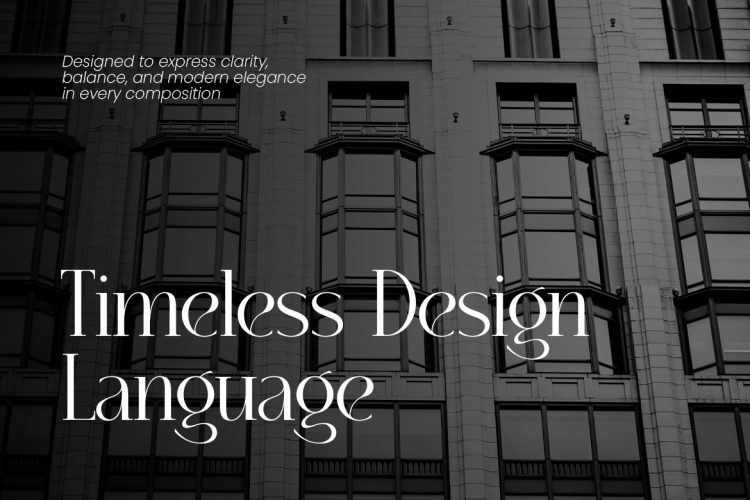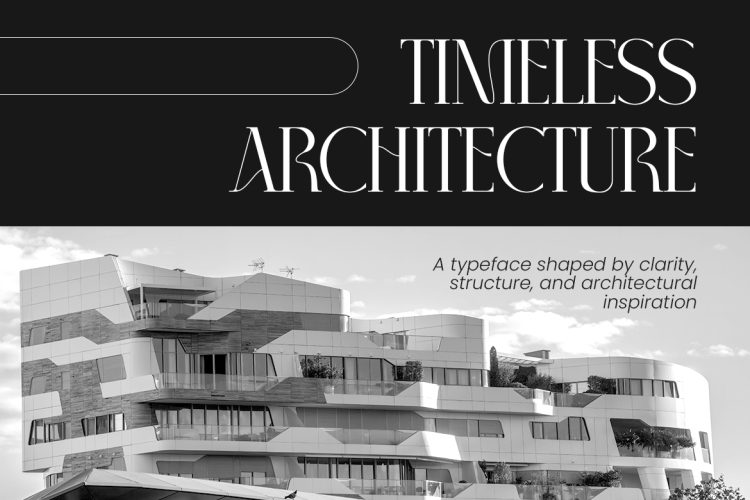
Instagram Font Milara โ Timeless Architectural Elegance
Instagram Font Milara is a refined modern serif designed to express elegance, balance, and precision. It draws inspiration from architectural structure and editorial typography. The result is a typeface that feels both modern and timeless. Its sharp serifs and graceful curves create a sophisticated visual rhythm. As a result, every headline appears clean and confident.
The thin hairlines contrast beautifully with strong vertical strokes. This contrast adds clarity and elegance to every composition. In addition, the balanced proportions create harmony in layouts. Because of this structure, the typography feels polished and professional. Instagram Font Milara also supports 67 languages, making it ideal for global design projects.
Instagram Font Milara is a modern serif display typeface built for elegant typography. The letterforms feature refined contrast and carefully crafted curves. Therefore, the font delivers a graceful and artistic appearance. At the same time, its precise structure ensures excellent readability.
Moreover, Milara works beautifully in editorial layouts and branding. It is perfect for magazine titles, creative branding, and stylish marketing materials. It also performs well in website headers and premium social media graphics. Because of its clean structure, the font looks strong in both print and digital design.
Instagram Font Milara is perfect for graphic designers, branding studios, creative directors, and content creators. It suits projects that need a refined and professional look. This includes editorial layouts, magazine covers, architecture branding, fashion campaigns, luxury logos, and elegant social media content.